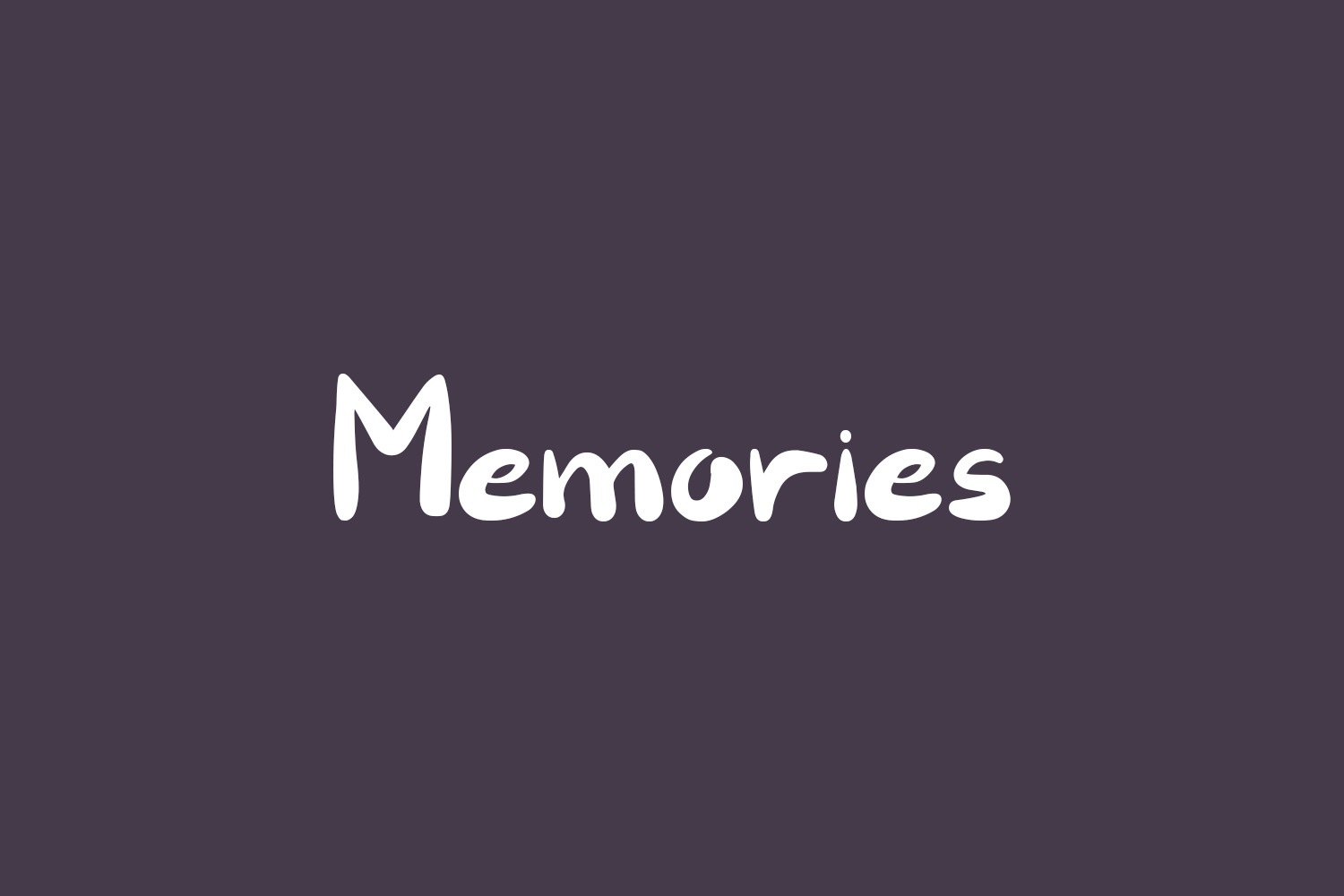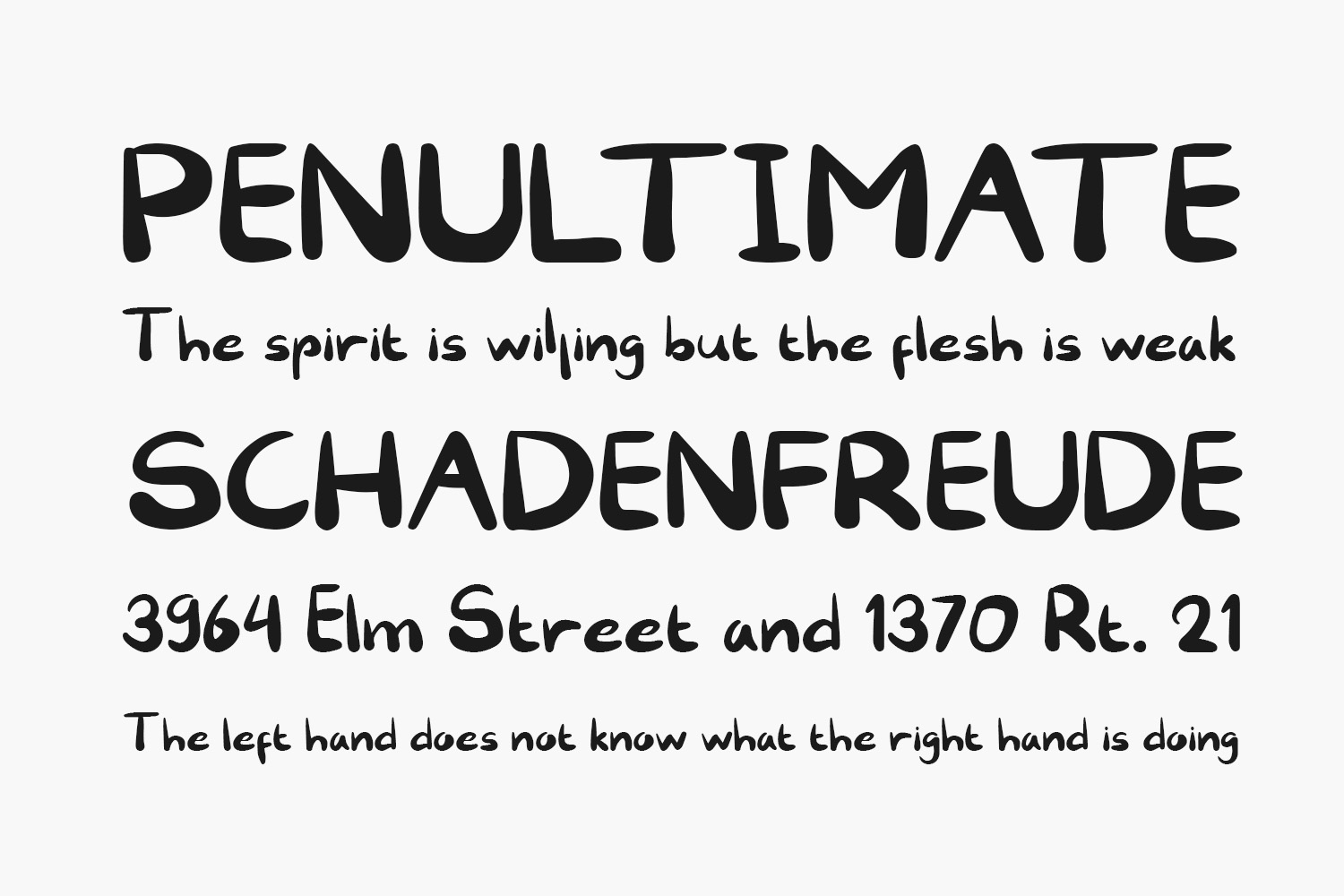
Memories Free Font is a modern and unique display font. This font would be ideal for writing web designs, business cards, or pretty much anything else that requires a unique touch. Memories Free Font was designed by Ni Luh Purnamawati and is free for personal use only. Please purchase the full version for commercial use.